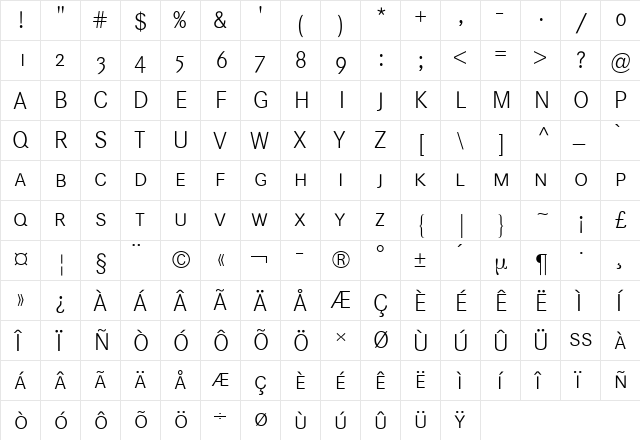
Corporate S Expert BQ Light
Design Context for Corporate S Expert BQ Typeface
Corporate S Expert BQ offers clean, dependable letterforms without strong stylistic allegiance, making it a practical choice for designers who need flexibility. The delicate stroke weight brings airiness and refinement to layouts.